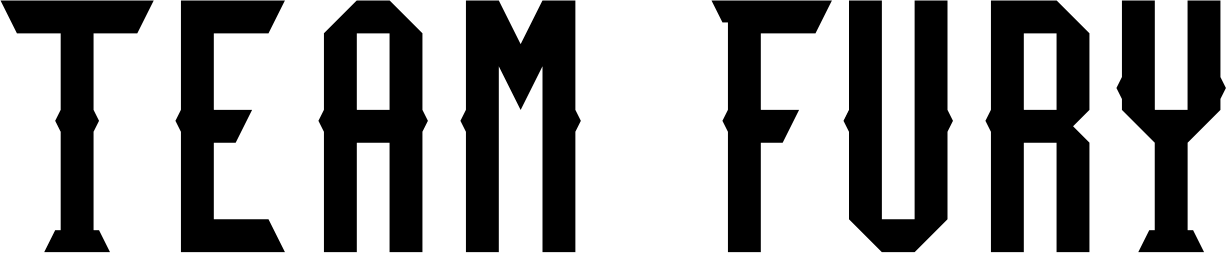
Team Fury Font
Team Fury is an American sports font that comes with bold, angular characters that look sharp, retro, and strong. It works wonders for you if you want your brand to appear to your target audience.
Team Fury comes in all caps and does not include general punctuation in the character collection. This football font works best for making bold headings and titles in posters, and books. You can also use it in branding, and logotypes.
This font mixes the spirit of the Obey The Brave logo with the styling and serif locations of a classic varsity or college font, plus some studs at the median. Updated to replace the work in progress font previously uploaded!